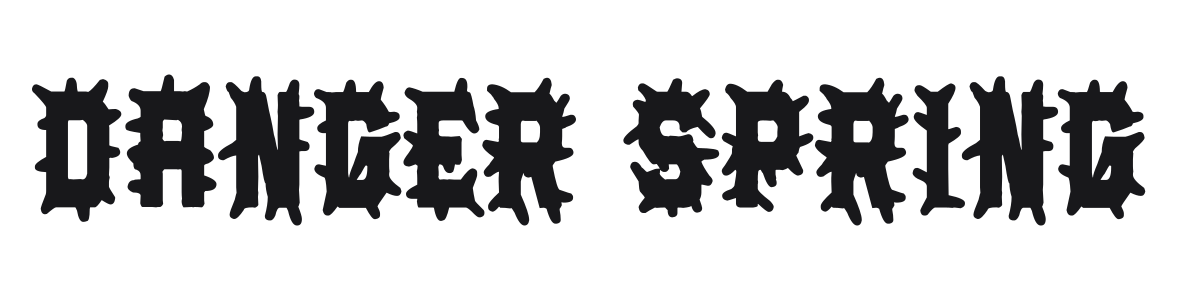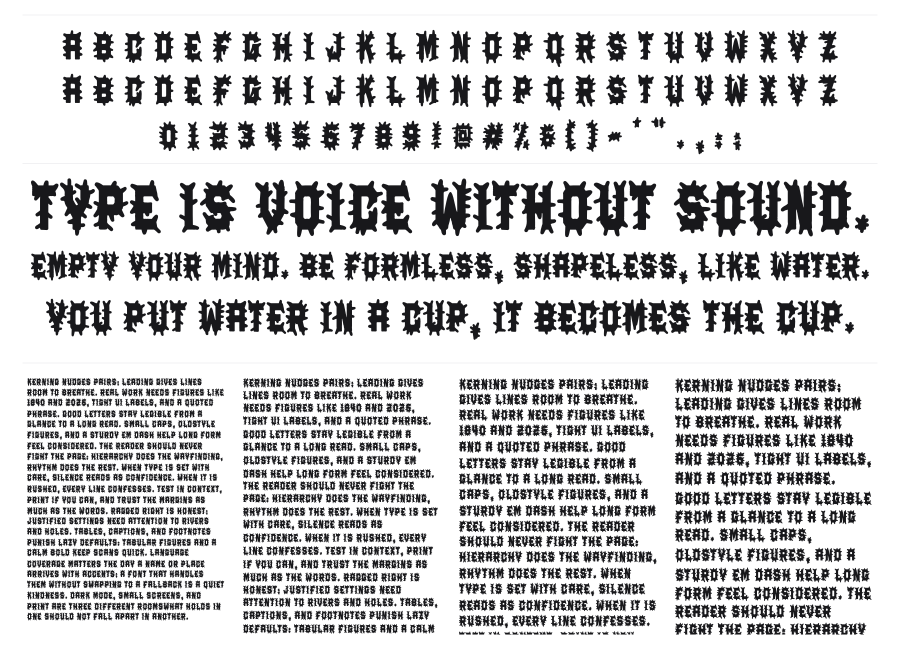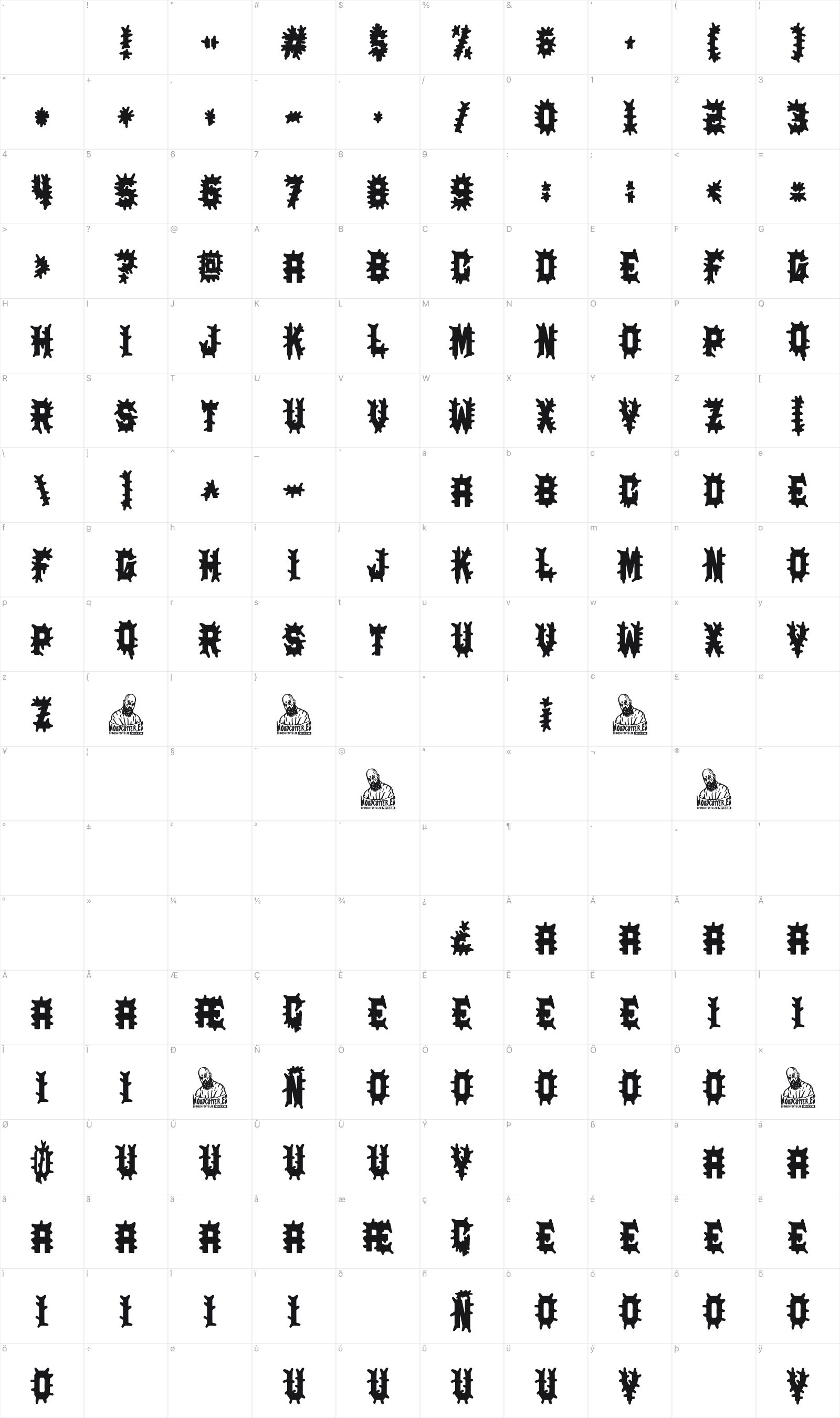
Danger Spring
Danger Spring is a heavy distressed display font by Woodcutter with a jagged, spiked texture that makes every character look like it's been clawed or corroded. The underlying structure draws from blackletter proportions, but the aggressive surface distortion pushes it firmly into horror and heavy metal territory. Best used large, where the chaotic edge detail reads clearly.